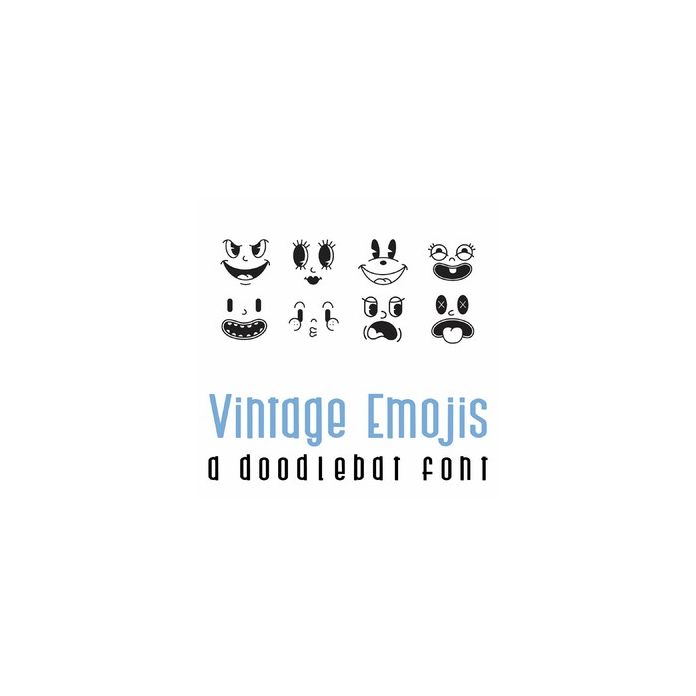
Vintage Emojis Doodlebat Font
This fun doodlebat features fun spring flowers! Perfect for scrap book pages, planner stickers, decor, card making, gifts and more!